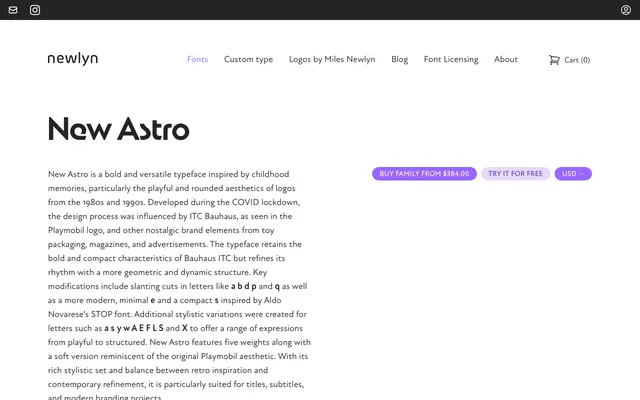
New Astro Soft
Newlyn
New Astro Soft specimen from Newlyn
A geometric display face rooted in ITC Bauhaus and 1980s toy packaging aesthetics, available in standard and soft rounded variants across five weights.
Developed during COVID lockdown, the design draws directly from ITC Bauhaus as seen in the Playmobil logo, refining that compact boldness with slanted cuts, a minimal e, and a compact s borrowed from Aldo Novarese's STOP. A Soft subfamily adds fully rounded terminals to echo the original Playmobil aesthetic, while an extensive stylistic set provides alternate forms for letters including a, s, y, w, A, E, F, L, S and X. The family spans ten styles across two subfamilies and suits titles, subtitles and brand work where retro geometric character is wanted.
A bold, rounded geometric display face drawing on ITC Bauhaus and 1980s–90s toy brand aesthetics, designed primarily for titles, subtitles and branding rather than continuous text.